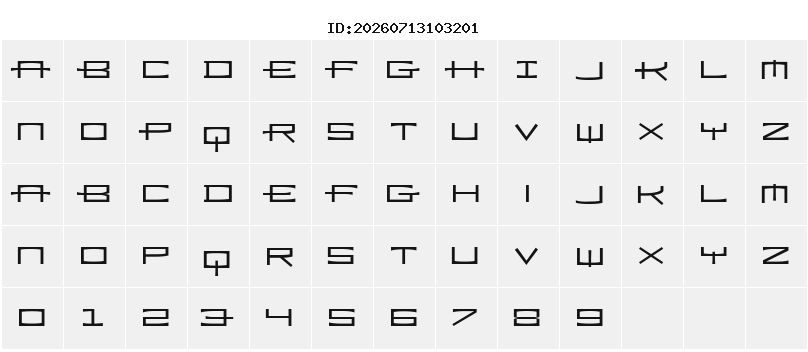
RamizRegularA Preview
About RamizRegularA.ttf
RamizRegularA.ttf is a modern, elegant sans-serif font designed for ultimate readability and visual harmony. Perfect for branding, headlines, web design, and print materials.